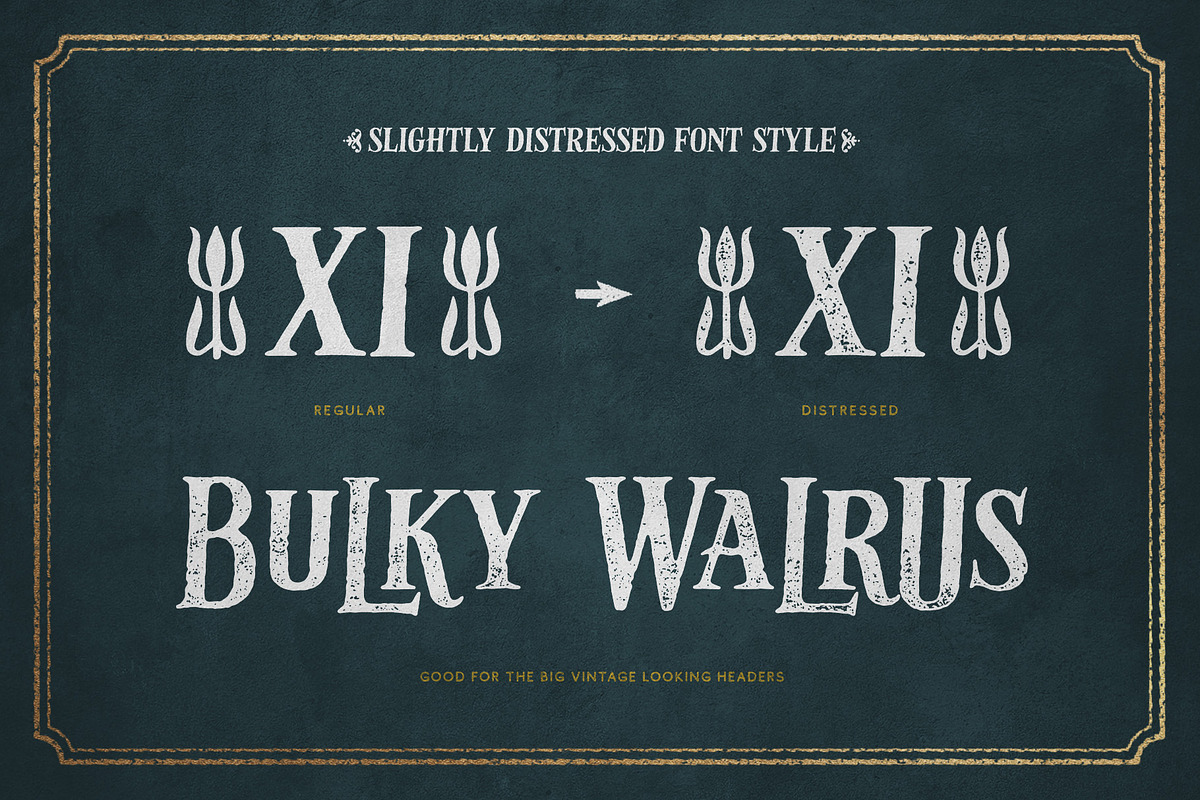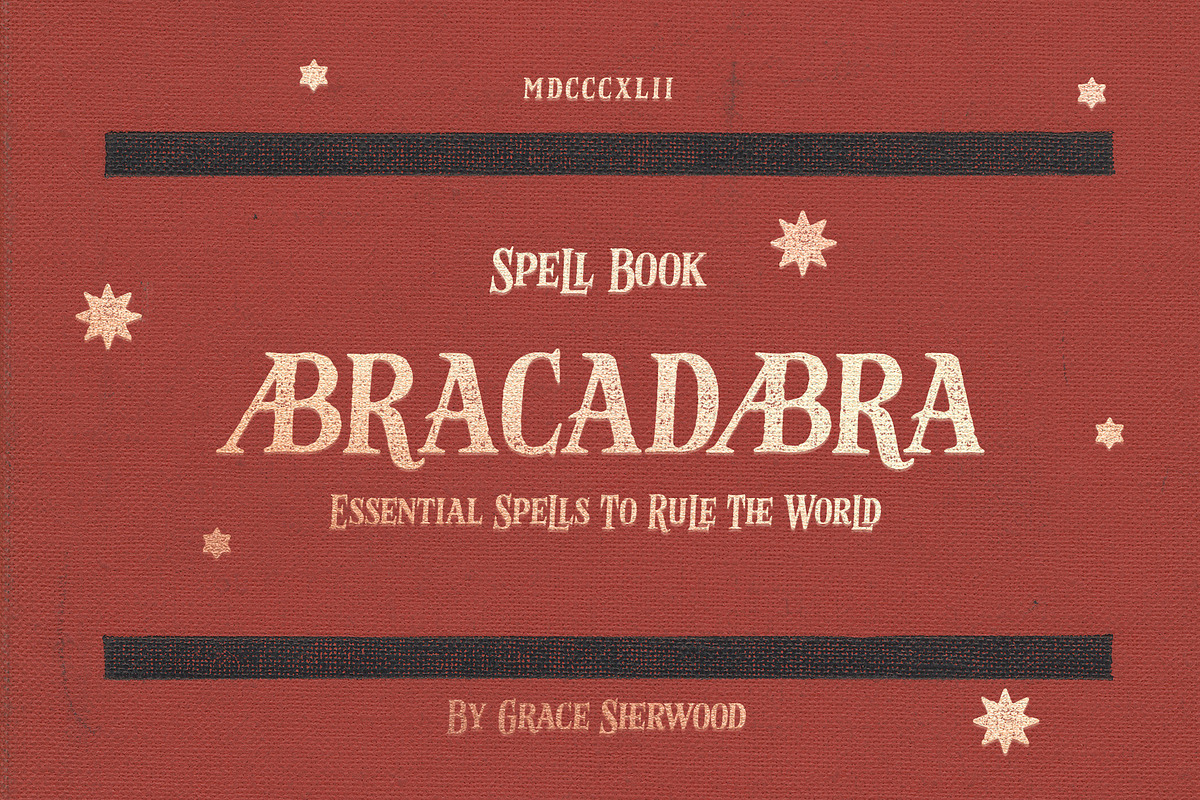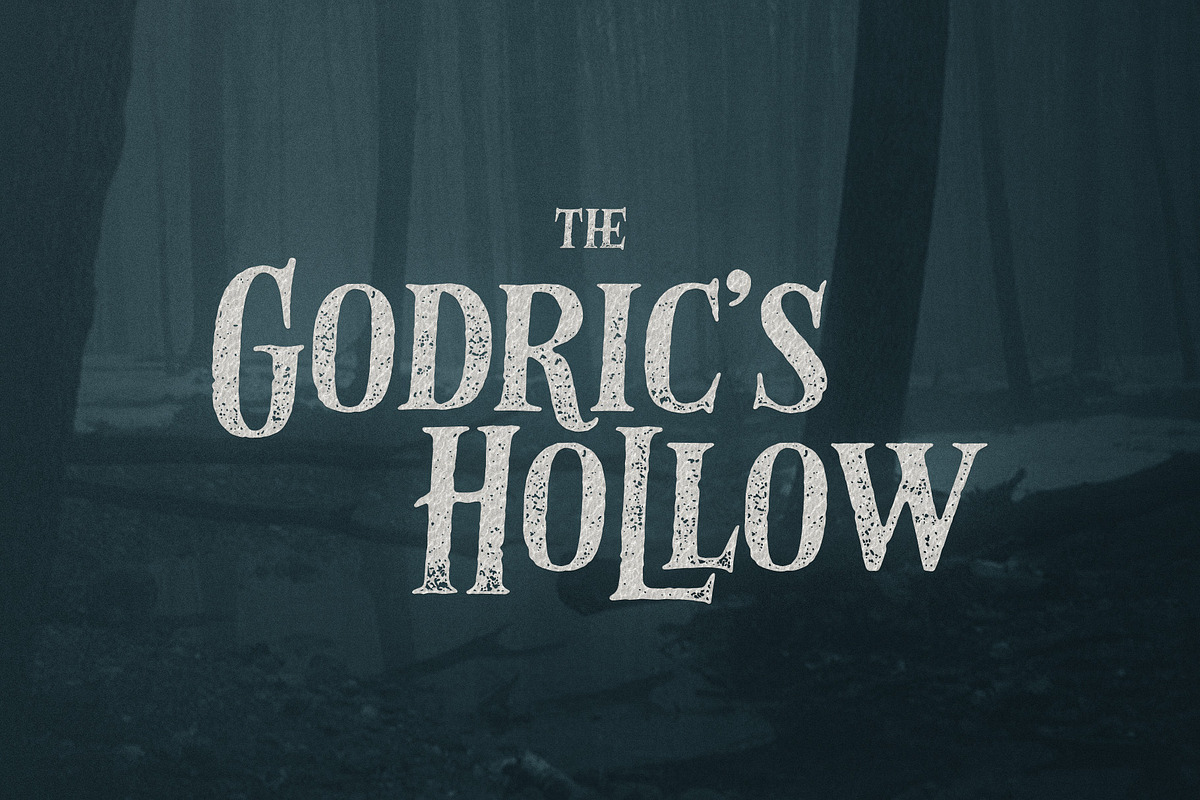
Silent Creek Vintage Serif
SILENT CREEK is an old-fashioned serif font with imperfect ink-bleed edgings. Inspired by vintage letter texts from the early period of colonial North America this font makes you think about old books, traditional holidays, secret societies, something mysterious, and of course magic. This font is perfect for big headers but also looks good in small text blocks. You can choose a regular or a distressed-style depending on your goals. The font includes uppercase and lowercase letters, decorative symbols, alternates, and ligatures. The font is perfect for greeting cards, logo design, invitations, posters, and quotes.